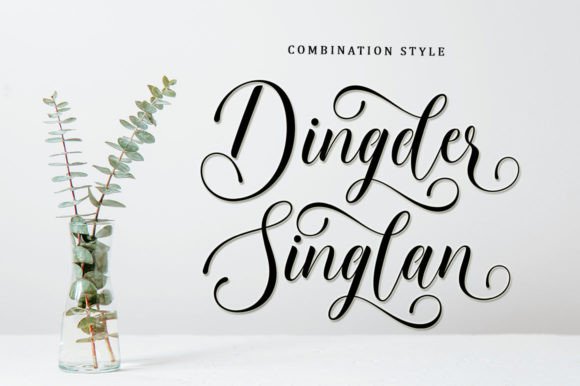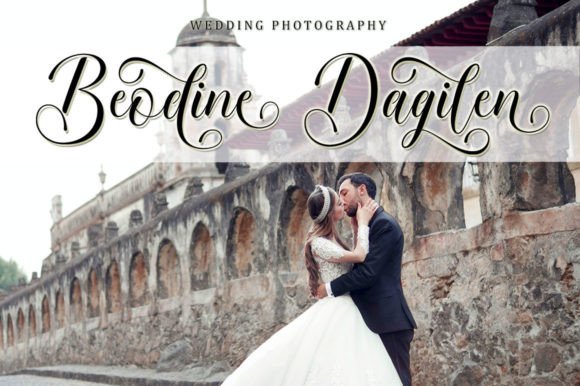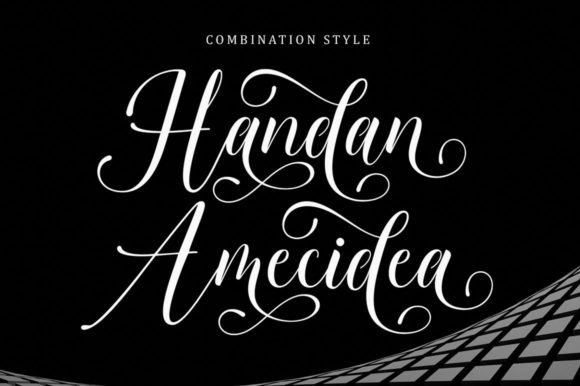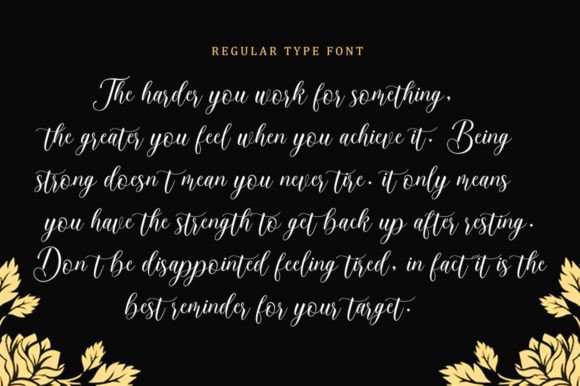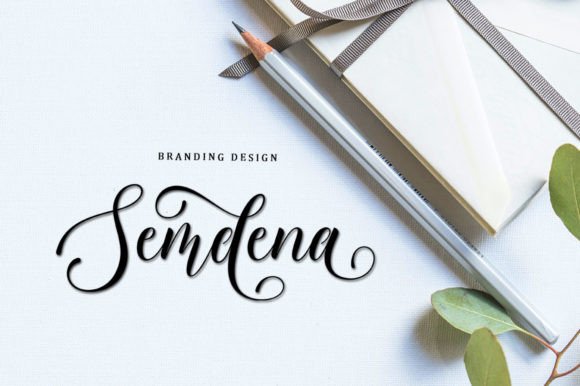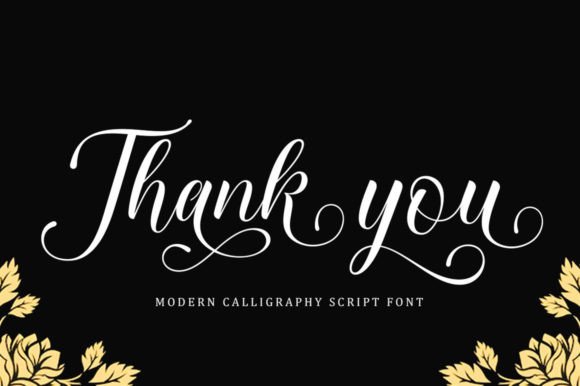
Blandore Font: Elevate Your Designs with Elegance and Sophistication
In the world of typography, fonts play a crucial role in conveying the tone and personality of a design. Among the numerous fonts available, Blandore Font stands out for its unique, flowing handwritten style that exudes elegance and sophistication. In this article, we’ll explore the features and benefits of Blandore Font, and how it can be used to create stunning designs for various projects.
What is Blandore Font?
Blandore Font is a beautiful, handwritten font characterized by its elegant touch. Its flowing lines and curves create a sense of movement and fluidity, making it perfect for designs that require a touch of sophistication. The font’s unique style is both distinct and timeless, allowing it to be used in a wide range of applications, from digital designs to print materials.
Key Features of Blandore Font
- Elegant and Sophisticated: Blandore Font boasts an incredibly elegant and sophisticated style, making it ideal for designs that require a high level of refinement.
- Flowing Handwritten Style: The font’s flowing handwritten style creates a sense of movement and fluidity, adding a touch of dynamism to any design.
- Distinct and Timeless: Blandore Font’s unique style is both distinct and timeless, ensuring that your designs will stand out and remain relevant for years to come.
- Versatile: The font can be used in a wide range of applications, including digital designs, print materials, logos, branding, and more.
Who Can Benefit from Using Blandore Font?
Blandore Font is perfect for designers, crafters, and anyone looking to add a touch of elegance and sophistication to their projects. Some of the professionals who can benefit from using Blandore Font include:
- Graphic designers
- Log designers
- Branding experts
- Digital artists
- Crafters and makers
- Stationery designers
How to Use Blandore Font in Your Designs
Using Blandore Font in your designs is easy and straightforward. Here are some tips to get you started:
- Pair it with Other Fonts: Combine Blandore Font with other fonts to create a unique and visually appealing typography.
- Experiment with Colors: Try out different colors and color combinations to find the perfect match for your design.
- Play with Sizes: Experiment with different font sizes to create visual hierarchy and add emphasis to specific elements.
- Add Decorations: Add decorations and graphics to enhance the overall design and make it more engaging.
Tips and Tricks for Getting the Most Out of Blandore Font
Here are some additional tips and tricks to help you get the most out of Blandore Font:
- Use it for Headings and Titles: Blandore Font is perfect for headings and titles, where its elegant and sophisticated style can shine.
- Mix it with Images: Combine Blandore Font with high-quality images to create stunning visuals.
- Try it on Different Backgrounds: Experiment with different backgrounds and textures to find the perfect match for your design.
In conclusion, Blandore Font is a beautiful, elegant, and sophisticated font that can elevate your designs to the next level. Its unique, flowing handwritten style makes it perfect for a wide range of applications, from digital designs to print materials. With its versatility, ease of use, and stunning visuals, Blandore Font is a must-have for designers, crafters, and anyone looking to add a touch of elegance and sophistication to their projects.